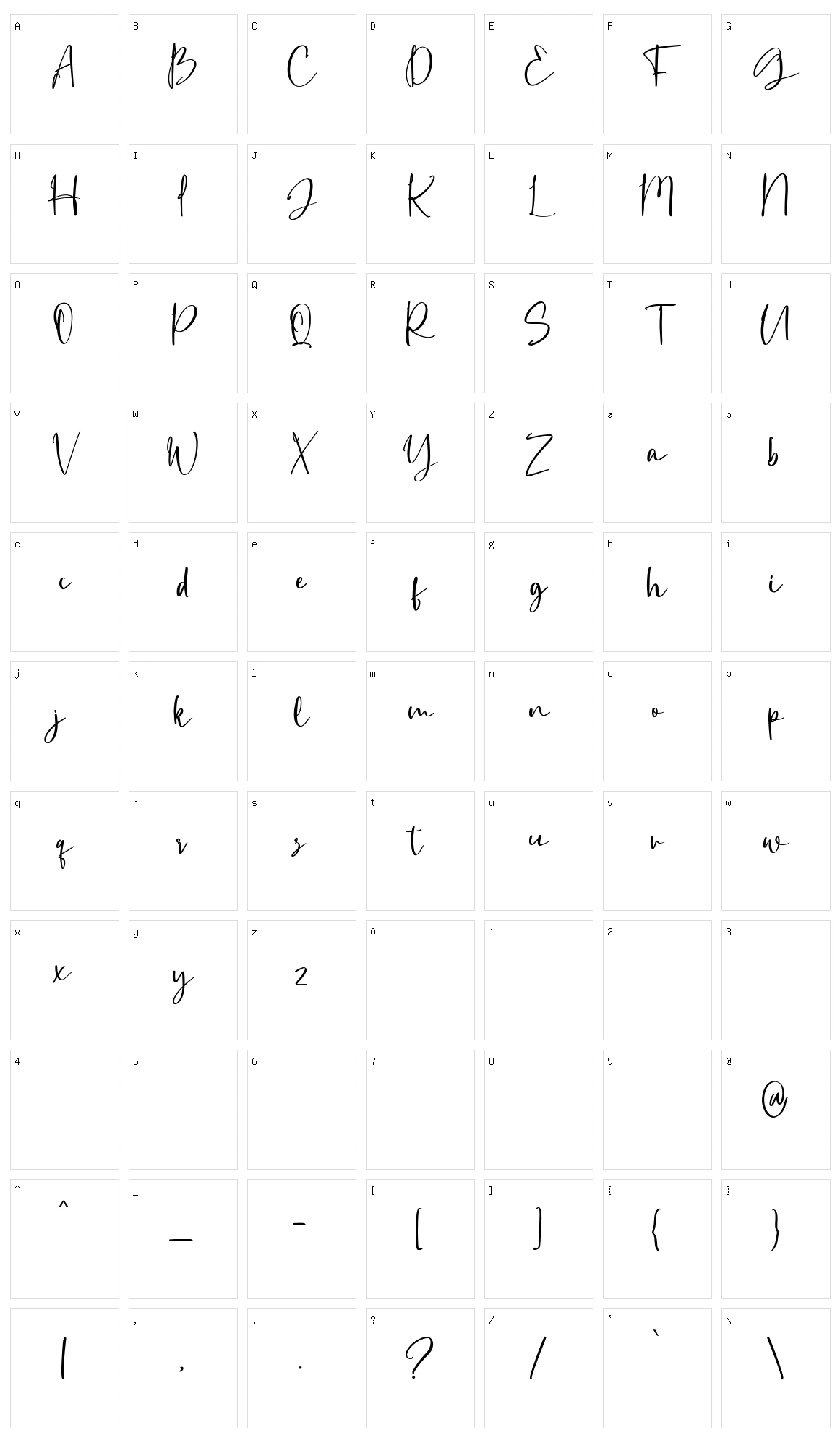
The free font Flowery is carefully designed by Fontysia, showcasing a thoughtful balance of creativity and usability and falls under the Script font style. When you download the ZIP file, it contains only 34.81 KB of font files, making it lightweight and quick to download. Please review the license details below to understand permitted usage and distribution rights. If license information is not available, we recommend using this font for personal projects only or contacting the author directly for commercial usage permissions.